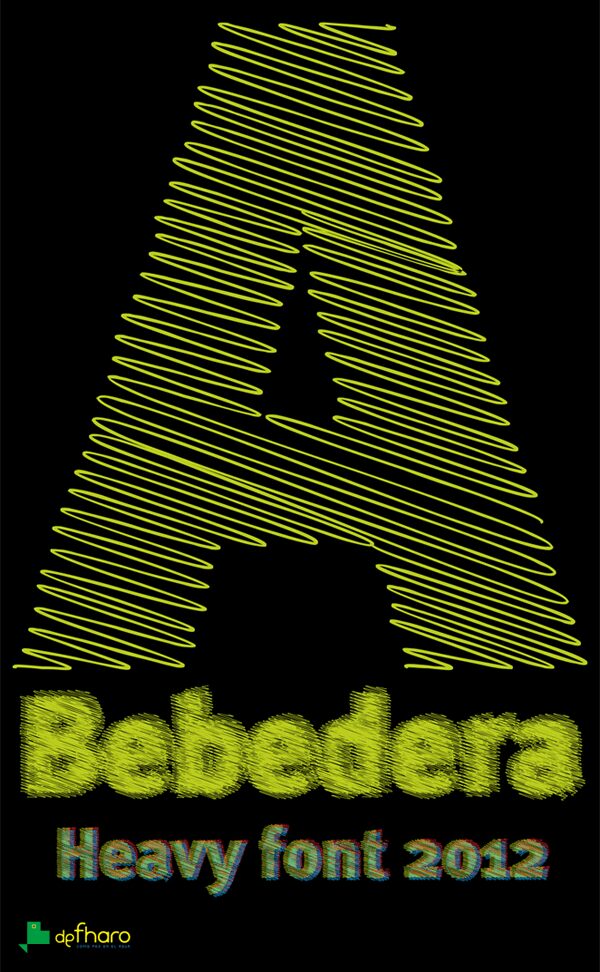
A Bebedera Heavy by deFharo is a free decorative display font with broad, weighty capitals drawn in dense bands of fine diagonal lines. The striped fill gives the lettering a screen-printed texture, and small breaks in the hatching keep the large forms lively rather than solid.
It can turn a poster title or music cover into a graphic texture as much as a piece of lettering. The repeated slant also suits streetwear branding and event merchandise, where it can echo ruled patterns, speed lines, or engraved shading in the surrounding artwork.
A Bebedera is a Portuguese phrase meaning “drunkenness.”
It is a Heavy typeface that includes all Latin accents.